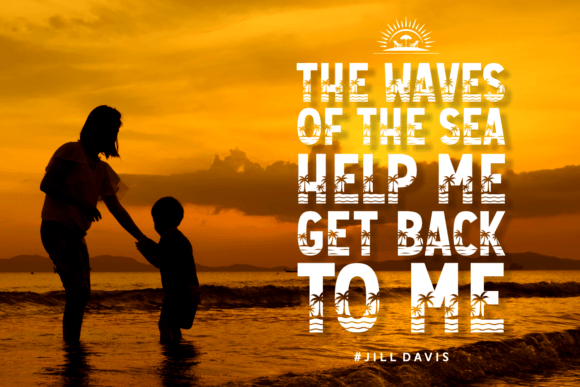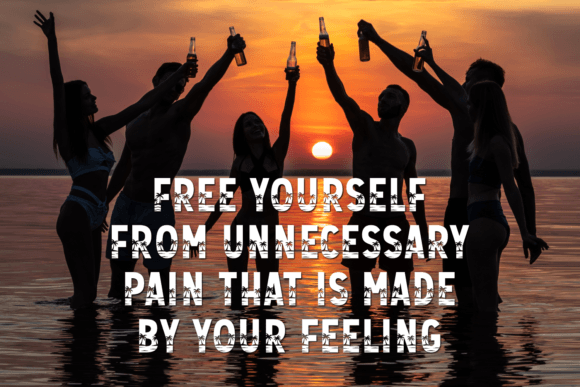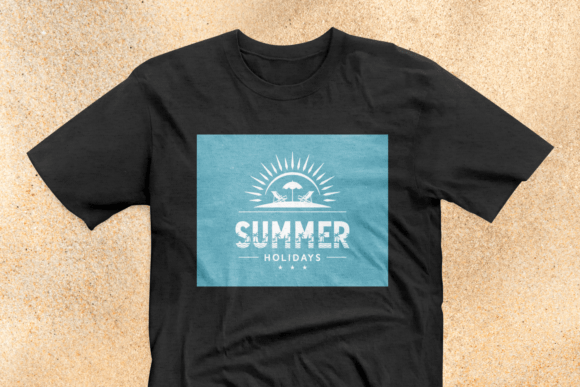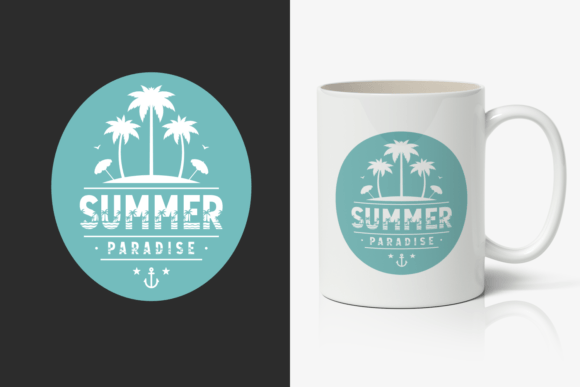
Discover the Amazing Summer Font: Your New Go-To for Sun-Kissed Designs
I’ll never forget the summer I landed a project to design a vibrant beach resort brochure. I was on a mission to capture the carefree essence of a tropical getaway, but my font choices were falling flat. That was until I stumbled upon the Amazing Summer font. Its whimsical palm tree details and lively vibe instantly transported me to a sun-soaked paradise. If you’re like me and constantly on the lookout for that perfect summer font, you’re in luck! Let’s dive into what makes Amazing Summer a must-have for your design projects.
An Honest Review of Amazing Summer
- ✨ Vibrant and Festive: Amazing Summer embodies the sunny vibes of the season with its bright and cheerful design.
- ✅ Whimsical Details: The charming palm tree details add a touch of tropical flair to any project.
- 🌴 Versatile: Perfect for a wide range of design projects, from summer events to social media content.
- 💡 Evokes Emotion: This font instantly conveys feelings of warmth, relaxation, and fun in the sun.
While Amazing Summer is a stunning font, there are a few things to keep in mind:
- 🤔 Legibility at Small Sizes: Some of the intricate details may get lost at very small font sizes.
- ⚠️ Overuse: As with any bold font, use it sparingly to avoid overwhelming your design.
The Story Behind Amazing Summer
Designed with the intention of capturing the quintessential summer experience, Amazing Summer was inspired by tropical vacations and sunny days. The designer aimed to create a font that not only looks great but also evokes the feeling of a carefree summer.
Q: What makes Amazing Summer unique?
A: Its whimsical design, charming palm tree details, and vibrant feel set it apart from other summer fonts.
Q: Is Amazing Summer difficult to read?
A: While it’s a decorative font, Amazing Summer is designed to be legible, especially at larger sizes. However, it may not be the best choice for body text.